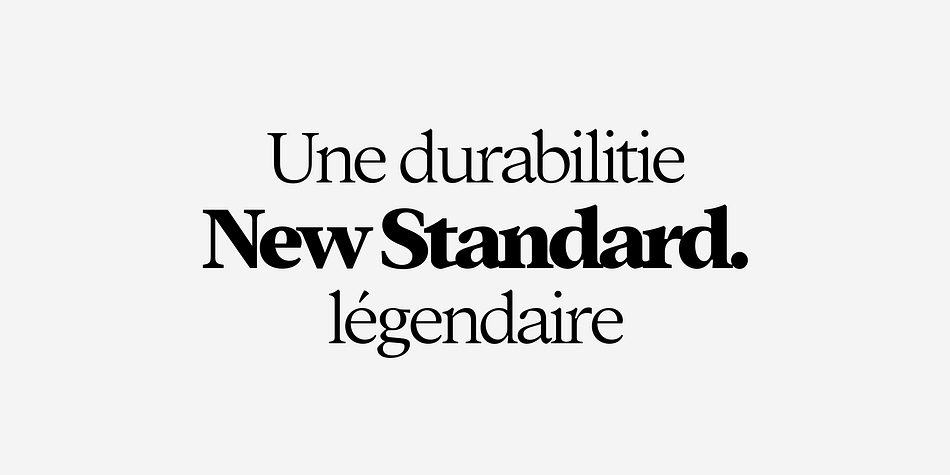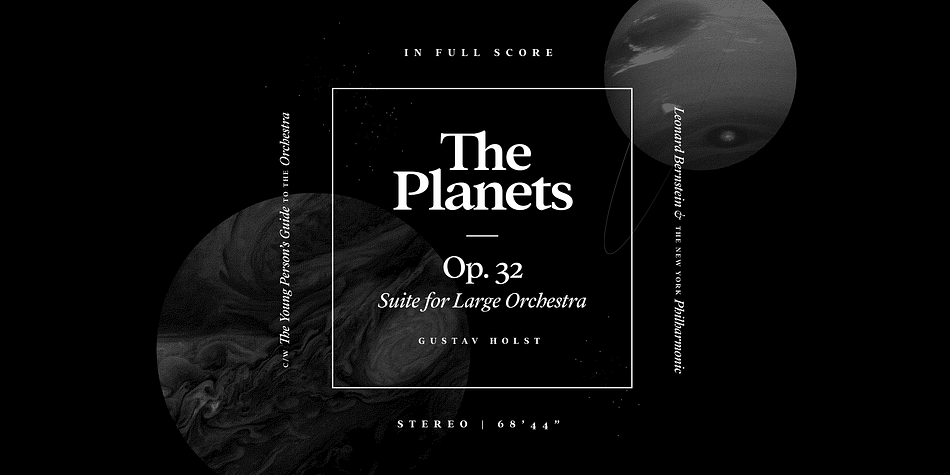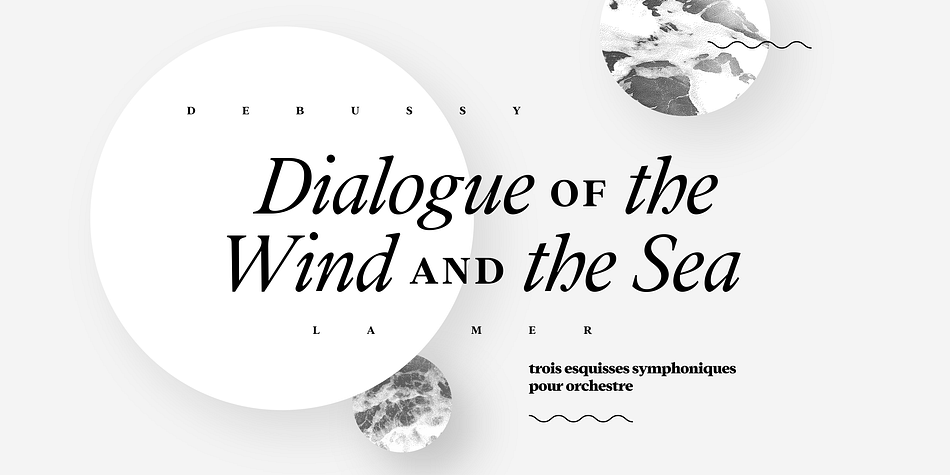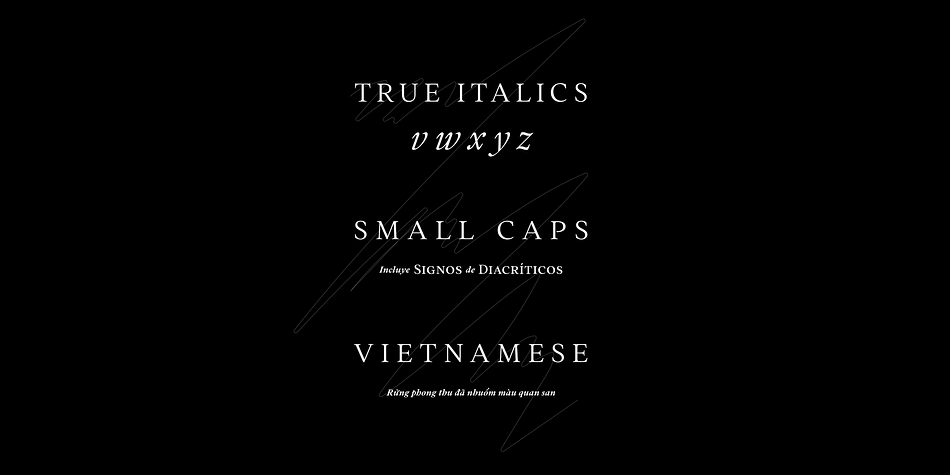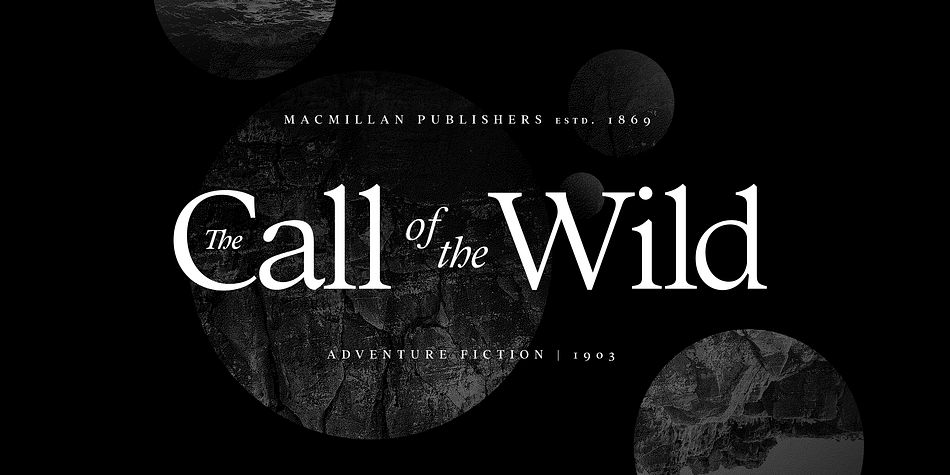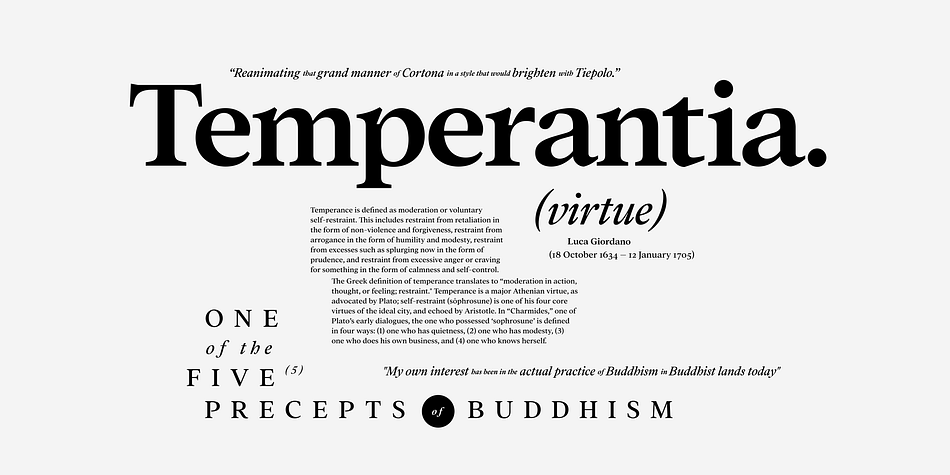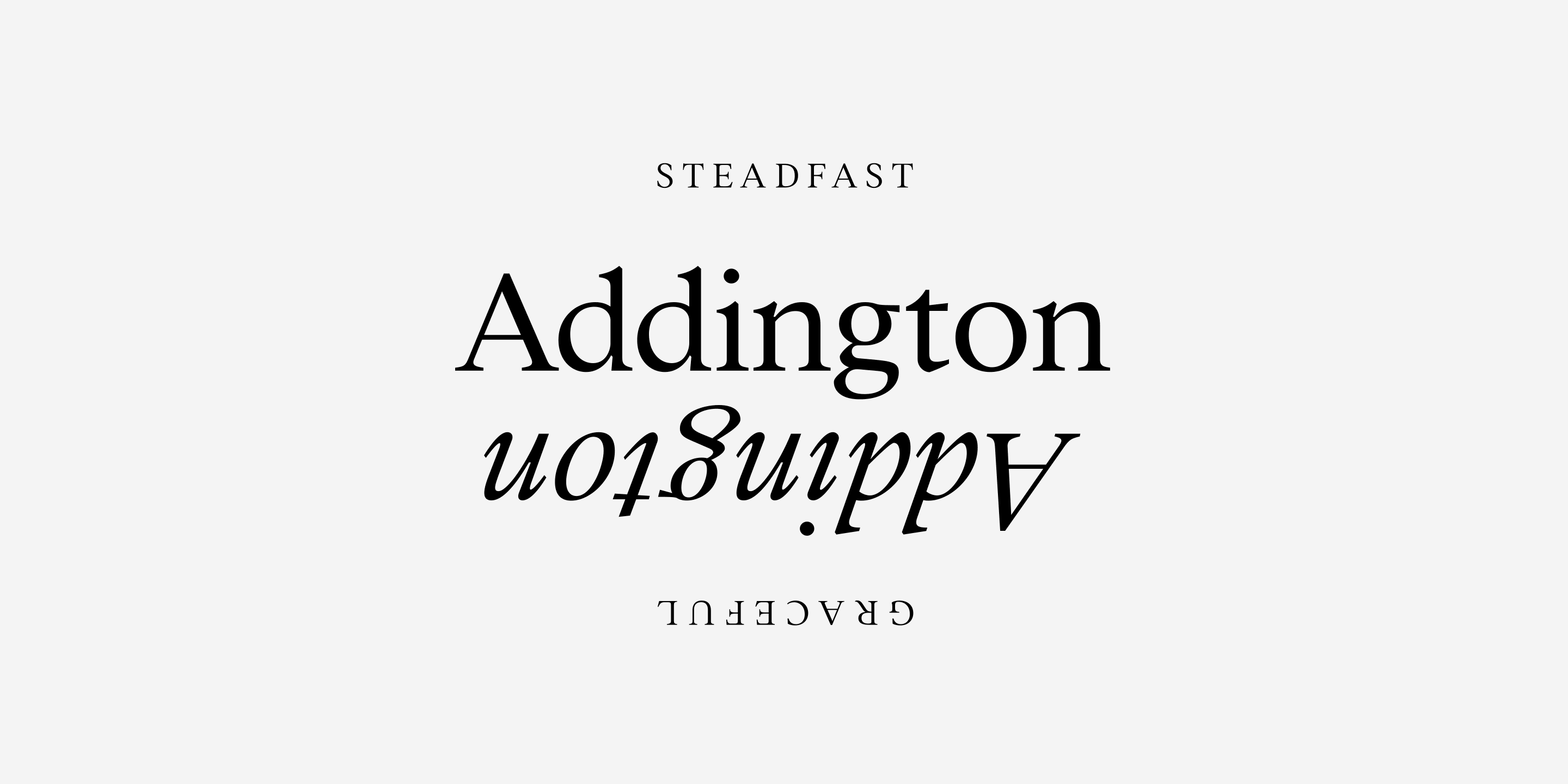
Addington CF is a serif font family. This typeface has fourteen styles and was published by Connary Fagen Type Design.
Addington is a graceful and reliable serif, useful in any situation. Beautiful yet practical, Addington is designed for excellence in text-heavy settings while doubling as a capable and strong display typeface. Complete with seven weights, true italics, and many OpenType features.
• Seven weights
• Roman and italic sets
• Advanced OpenType features
• Extensive Latin script support